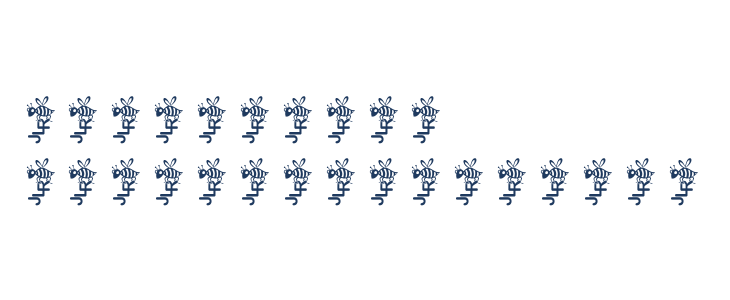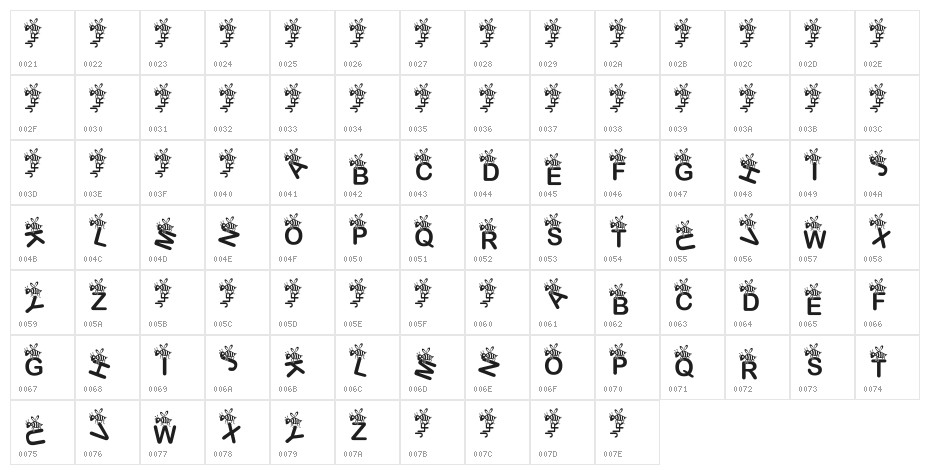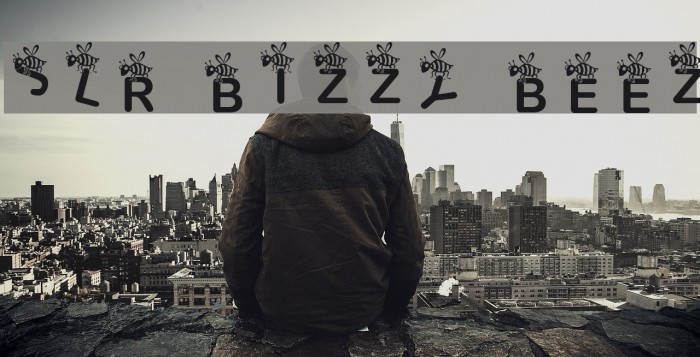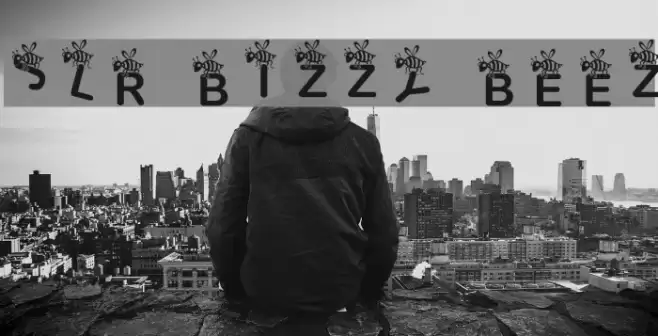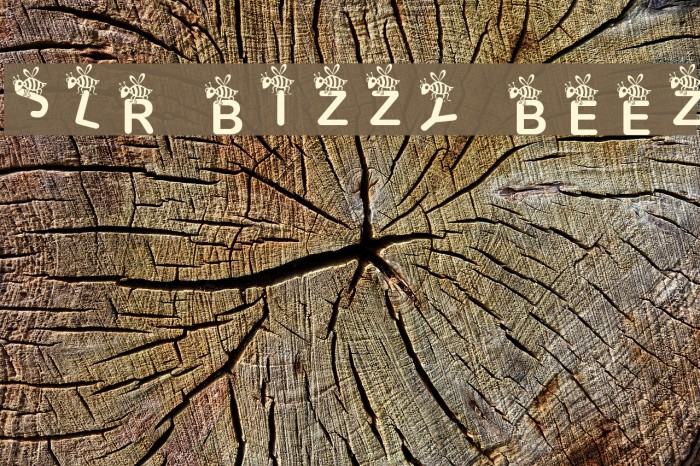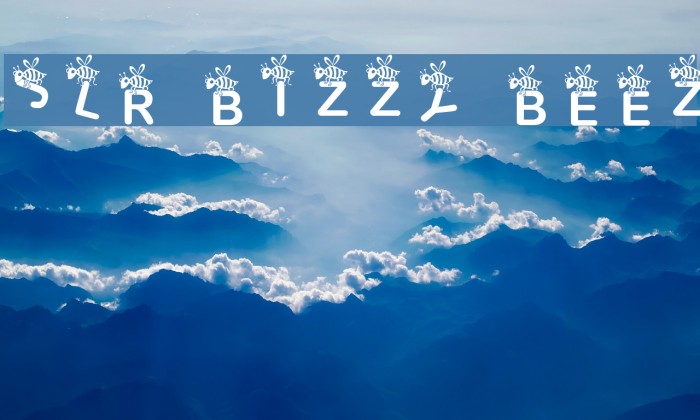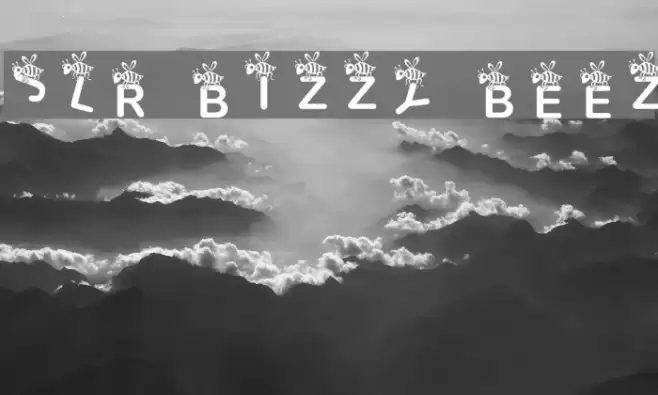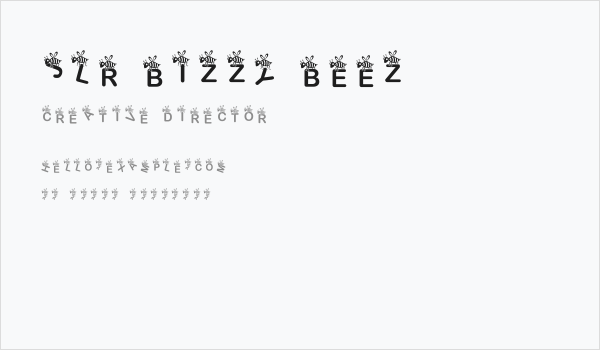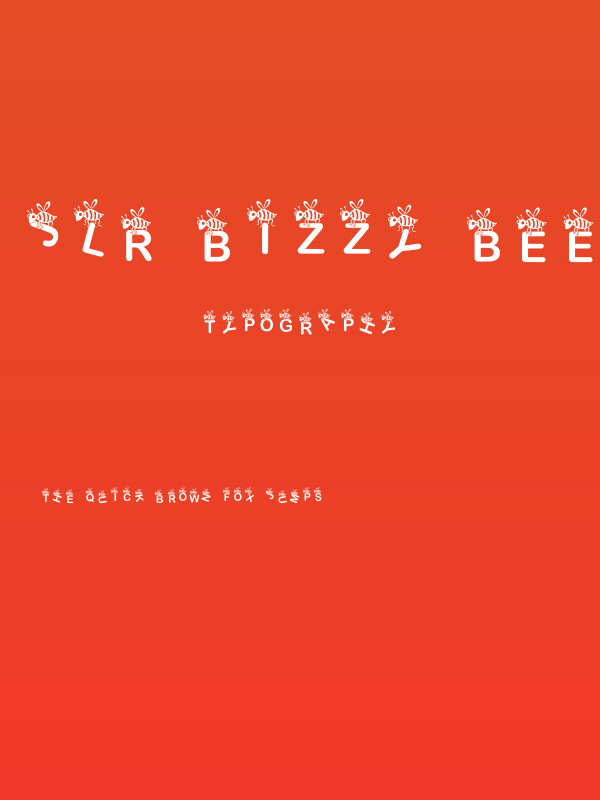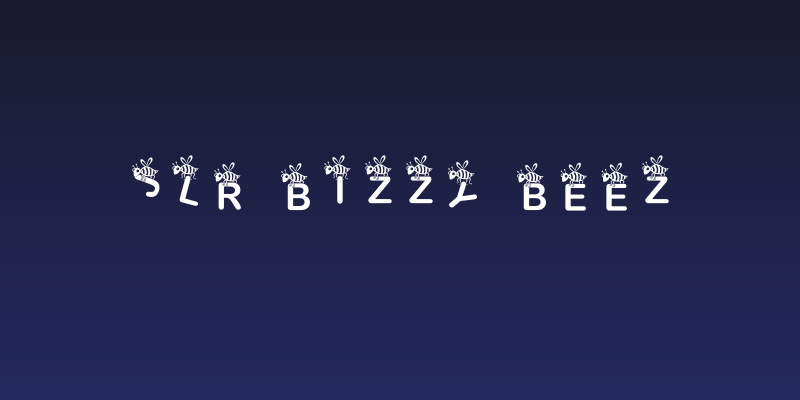
JLR Bizzy Beez Font
JLR Bizzy Beez Description
This playful and whimsical font features a unique bee motif integrated into each character, creating a lively and engaging visual experience. The letters are bold and rounded, with a consistent thickness that adds to their friendly appearance. The bee design is cleverly incorporated, with the bee's wings and body forming part of the letter structure, making each character distinct and memorable. This font is perfect for projects that require a fun and lighthearted touch, such as children's books, playful branding, or event invitations. Its distinctive style ensures that it stands out, while the consistent design elements maintain readability.
| Overall Style | Whimsical |
| Proposed Projects | Ideal for children's books, playful branding, event invitations, and creative projects. |